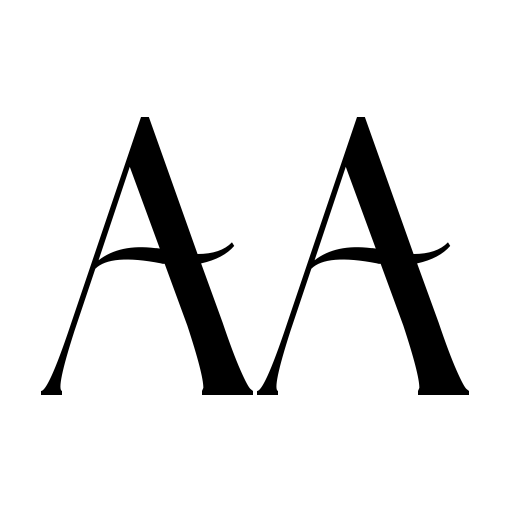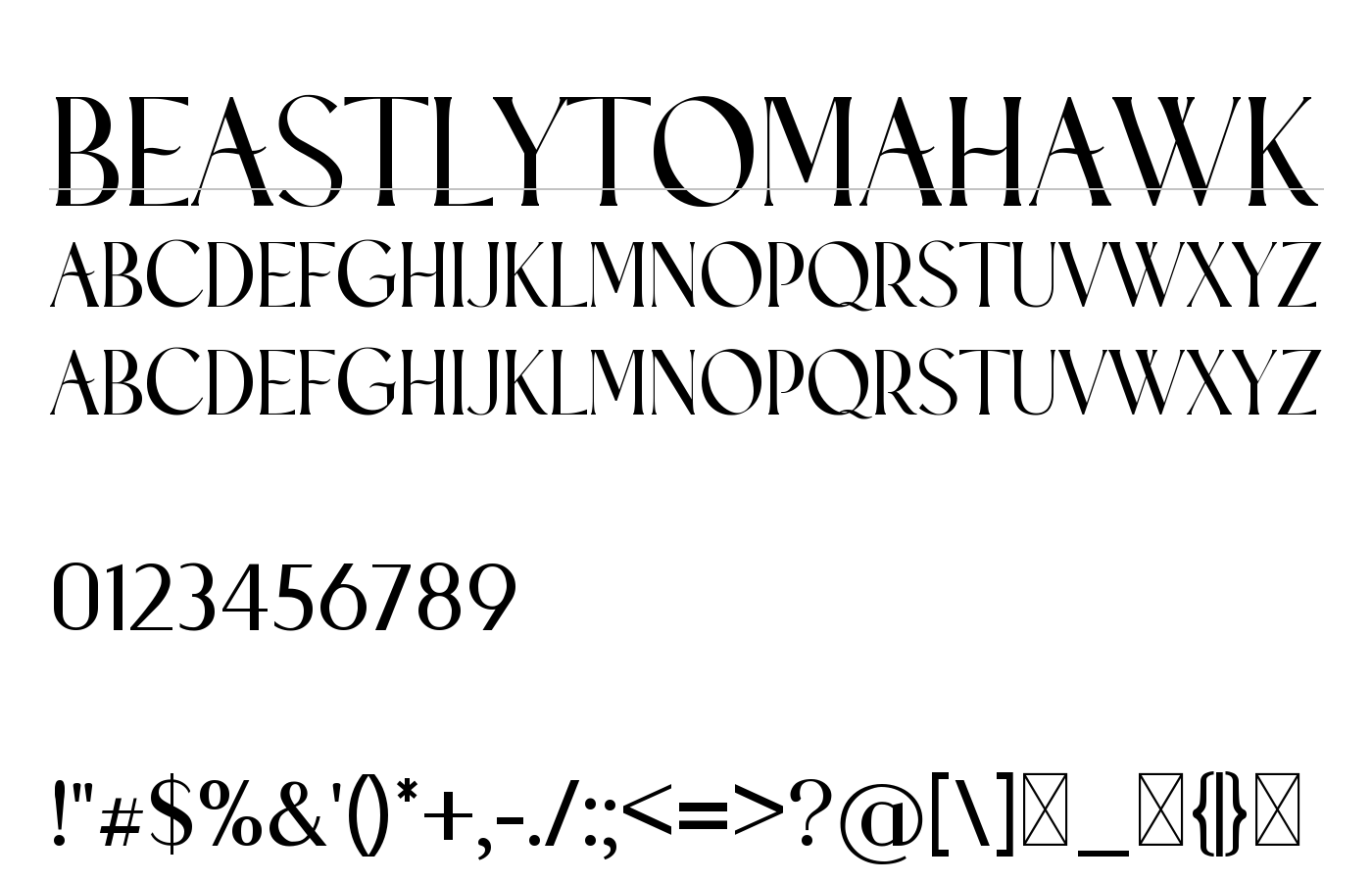
BeastlyTomahawk is a sharp and elegant serif font with a slender, tall appearance and high contrast between thick and thin strokes. Its distinctive angular serifs and stylish letterforms give it a unique, sophisticated personality that works well for luxury branding, editorial headlines, and creative logos. This font combines modern flair with a touch of vintage charm, making it ideal for projects that need a refined yet striking look.
BeastlyTomahawk Font